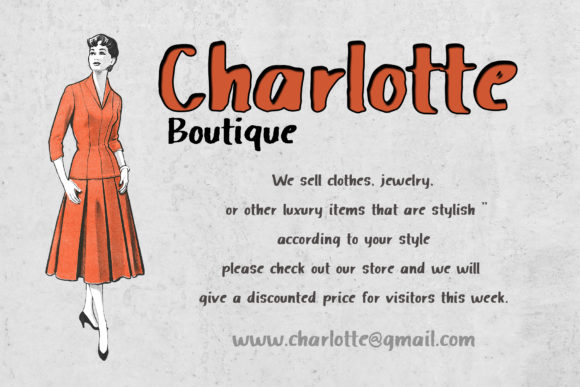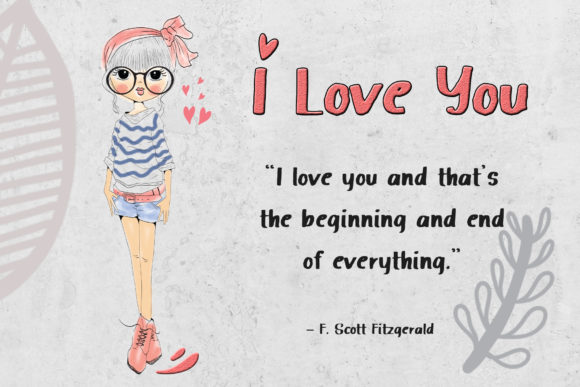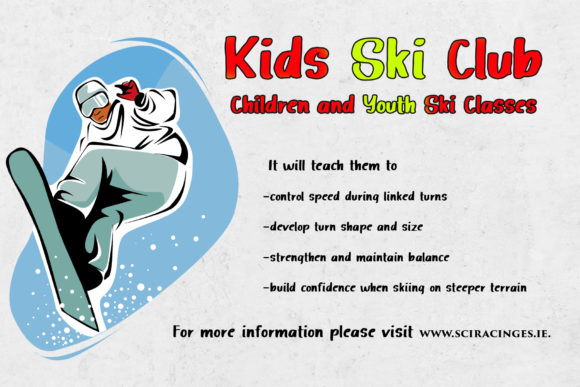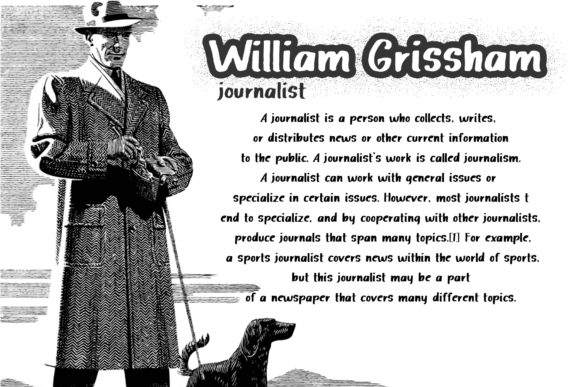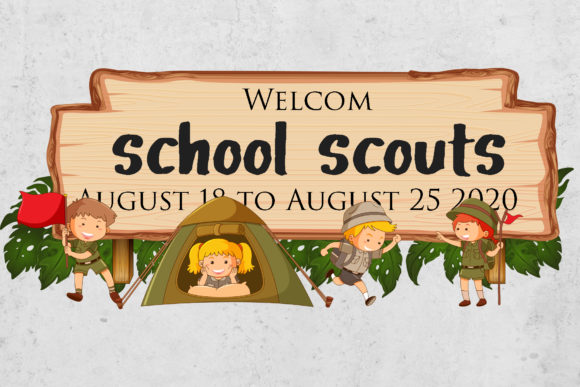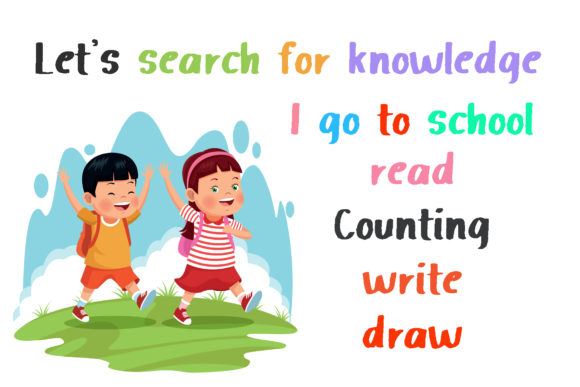
The Sweet Spot: Discovering the Chocolate Font
I’ll never forget the time I was working on a project for a client who wanted a playful, yet sophisticated look. I had spent hours browsing through font libraries, but nothing seemed quite right. That’s when I stumbled upon the Chocolate Font. It was like a breath of fresh air – a fun and cool handwritten font with a powerful style that instantly caught my attention. In this article, I’ll share my experience with the Chocolate Font, its features, and how to make the most of it in your design projects.
A First Impression: What I Love About Chocolate Font
The Chocolate Font has quickly become one of my go-to fonts for creative projects. Here’s what I love about it:
- ✨ Unique and Playful Style: The Chocolate Font has a distinctive, hand-drawn feel that adds a touch of whimsy to any design.
- ✅ Highly Legible: Despite its playful nature, the font remains clear and easy to read, making it perfect for body text and headings.
- 💡 Versatile: The Chocolate Font can be used for a wide range of projects, from branding and advertising to crafting and DIY tutorials.
While the Chocolate Font is an excellent choice for many projects, there are a few things to keep in mind:
- 🤔 Limited Formality: The Chocolate Font is, by design, a playful font. It may not be the best choice for projects that require a high level of formality or professionalism.
- ⚠️ Glyph Limitations: While the font has a range of glyphs and stylistic alternates, it may not have every special character or symbol you need.
The Story Behind Chocolate Font
The Chocolate Font was designed by a talented type designer who wanted to create a font that would bring a smile to people’s faces. Inspired by the playful, whimsical nature of hand-drawn fonts, the designer created a font that’s both fun and sophisticated. Today, the Chocolate Font is used by designers and crafters around the world to add a touch of personality to their projects.
| Font Name | Chocolate Font |
| Author | Sulthan Studio |
| What type of projects is the Chocolate Font best suited for? | The Chocolate Font is perfect for creative projects that require a playful, yet sophisticated look, such as branding, advertising, crafting, and DIY tutorials. |
| Is the Chocolate Font available in multiple languages? | The Chocolate Font may not support every language, but it does include a range of glyphs and special characters to help you create multilingual designs. |